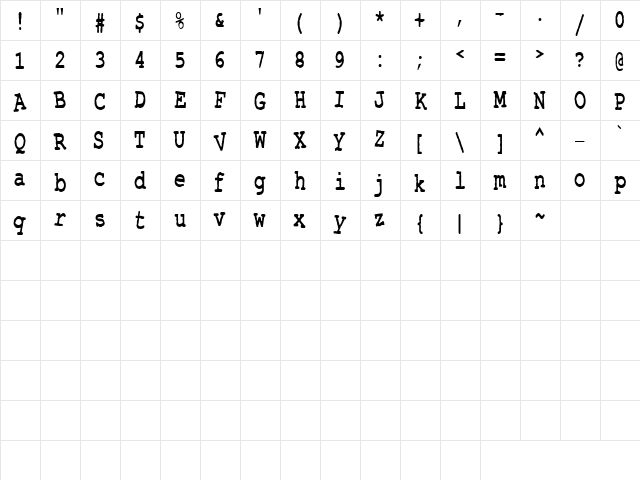
CK Corral Regular Font Preview
CK Corral Regular
Design Context for CK Corral Typeface
CK Corral takes a measured approach to typography — its balanced proportions and neutral character make it a reliable workhorse for both digital and print work.